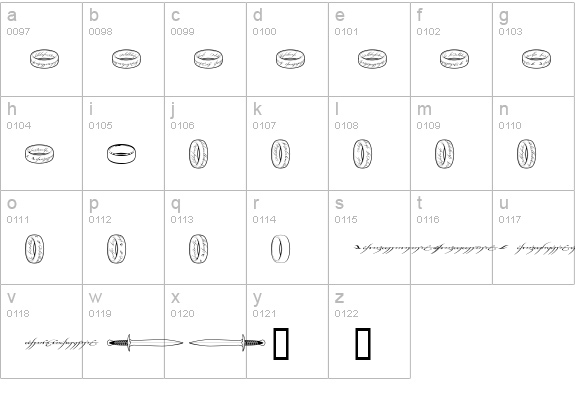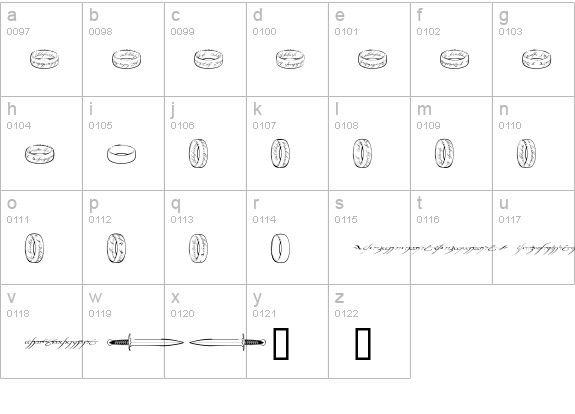
TheOneRing Font Details
Introducing TheOneRing font, a mesmerizing typeface that captures the enchanting essence of Middle-earth. Immerse yourself in the world of hobbits, elves, and wizards with this beautifully crafted font that is sure to transport you to the realms of fantasy. TheOneRing font boasts an extraordinary level of attention to detail, with each letter meticulously designed to evoke the spirit of J.R.R. Tolkien's iconic epic. From the elegant curves of the capital letters to the intricate embellishments of the lowercase characters, every element of this font is a testament to the dedication and passion of its creators. But what truly sets TheOneRing font apart is its accessibility. We believe that creativity should be free and readily available to all, which is why we are thrilled to offer TheOneRing font as a free download exclusively at FontsMarket.com. Now, you can effortlessly bring a touch of Middle-earth magic to your designs, whether you're crafting a logo for a fantasy-themed business or adding a whimsical touch to your personal projects. With TheOneRing font, the possibilities are endless. Let your imagination soar as you explore the vast landscapes of Tolkien's universe, all while seamlessly integrating this captivating font into your creative endeavors. Whether you're a seasoned designer or a budding artist, TheOneRing font is a must-have addition to your font collection. So, why wait? Embrace the power of TheOneRing font and embark on a journey of creativity like no other. Download it for free today at FontsMarket.com and unlock a world of endless inspiration. Let TheOneRing font be your guide as you bring your visions to life and make your designs truly extraordinary.